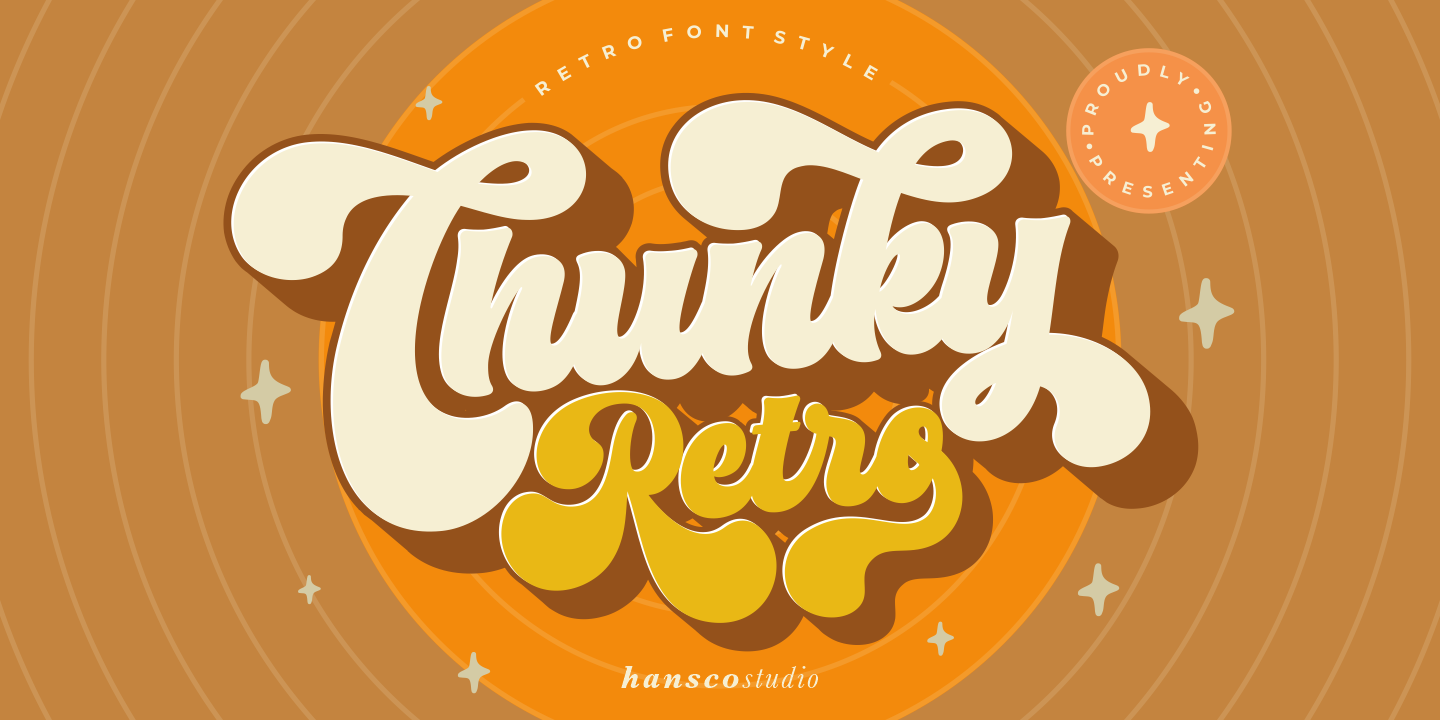
Chunky Retro Font is perfect for vintage diner signage, retro gaming interfaces, 70s themed party invitations, nostalgic arcade graphics, classic burger joint branding, old-school bowling alley designs, vintage automotive advertisements, throwback music album covers, retro-style merchandise, nostalgic ice cream parlor menus, and any project that requires bold vintage character with playful nostalgic charm.
What makes Chunky Retro Font exciting is its delightful ability to transport viewers back to the groovy era of the 1970s through thick, playful letterforms that capture the fun-loving spirit and bold aesthetic of classic American pop culture. This vibrant typeface features chunky proportions with retro flair that convey nostalgia, fun, and the carefree optimism of vintage entertainment culture. The font's chunky character adds instant retro credibility and nostalgic appeal to any design, making it perfect for brands celebrating vintage Americana and classic pop culture heritage.
Chunky Retro Font comes in multiple font families including Regular, Bold, Light, Condensed, Outline, and Groovy variations, providing designers with comprehensive options to create nostalgic compositions and achieve the perfect retro aesthetic for vintage-inspired design projects.
Whether you're developing retro brand identity, creating nostalgic entertainment materials, or designing vintage-themed campaigns, Chunky Retro Font Free Download offers the perfect solution for projects demanding authentic retro character and vintage sophistication. This playful typeface excels in display applications where nostalgic presence is essential, ensuring your designs communicate vintage fun and retro cultural values. The thick character and retro styling of Chunky Retro Font make it an indispensable tool for designers who prioritize vintage aesthetics, retro culture, and nostalgic American pop heritage in their typographic selections.